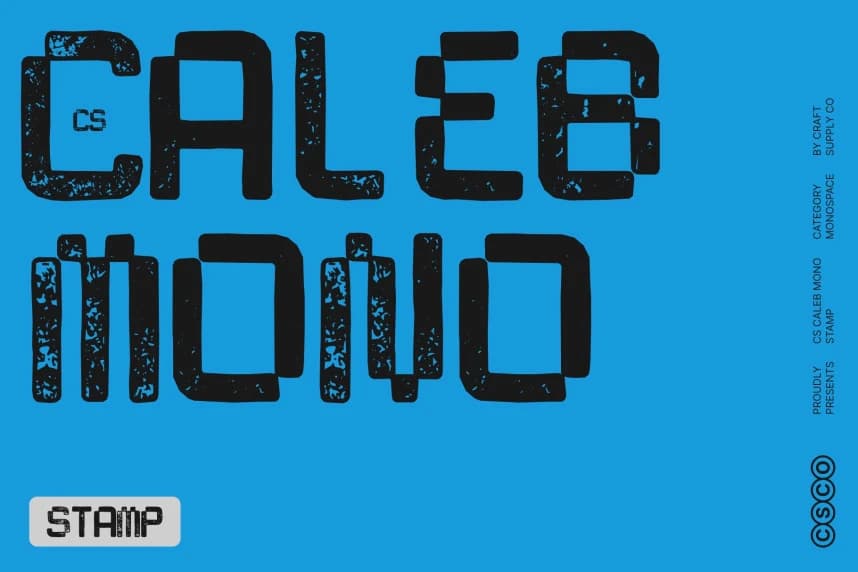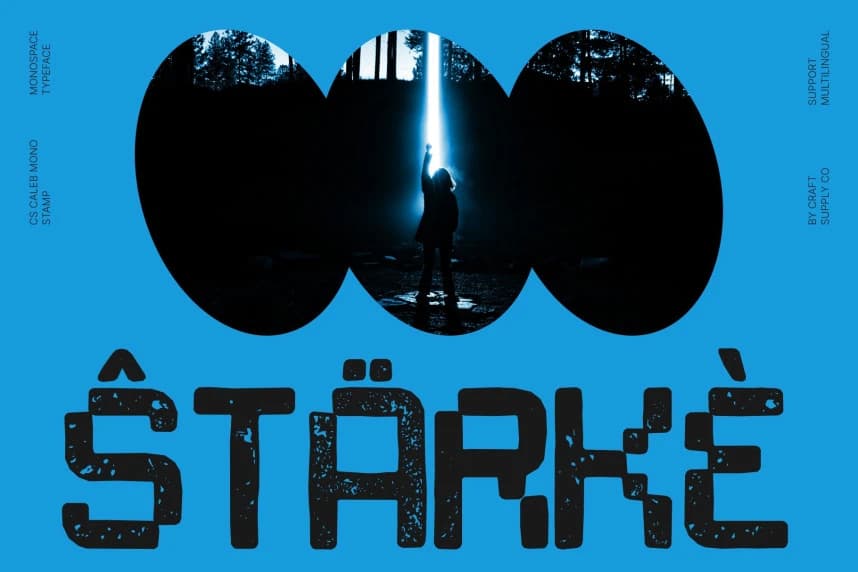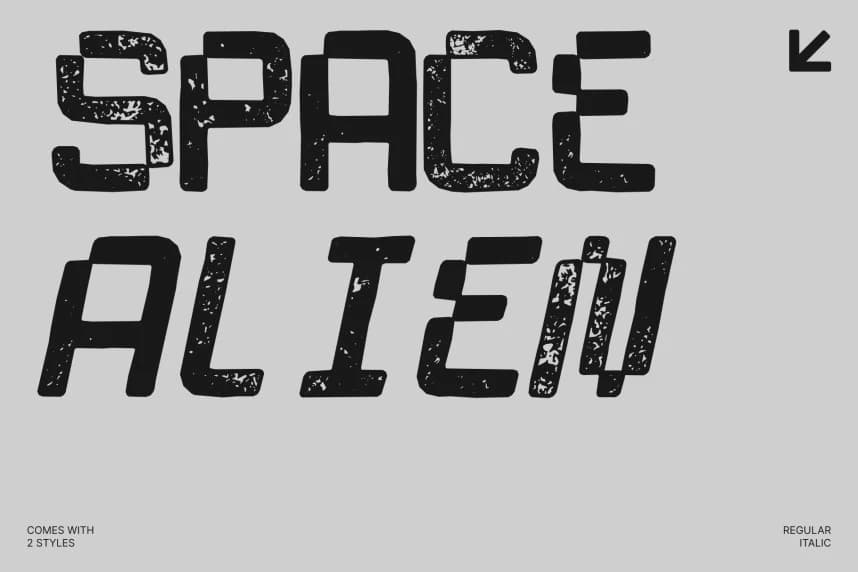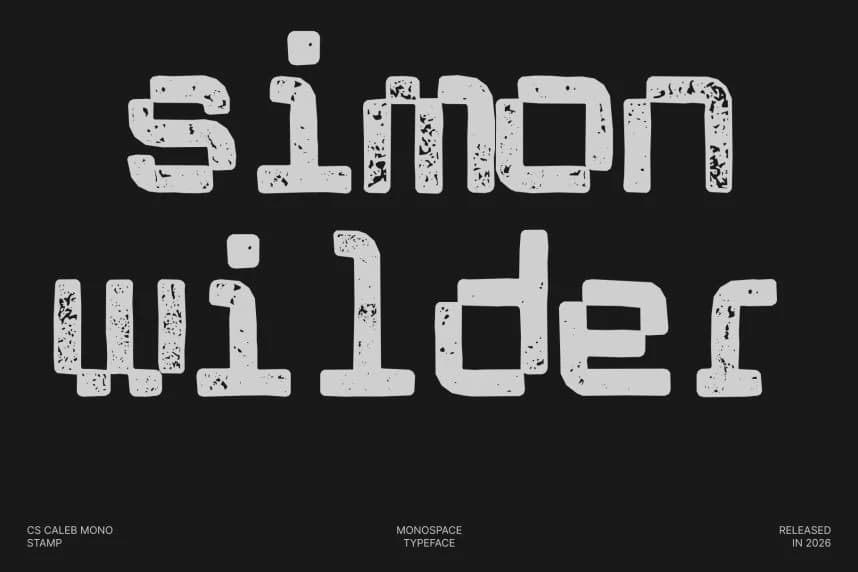
CS Caleb Mono Stamp Font
CS Caleb Mono Stamp Font – Monospaced Display Font with Retro Stamp Texture Structured Precision Meets Handcrafted Character. This Stamp combines the clarity of a monospaced typeface with the tactile charm of a vintage stamp effect.